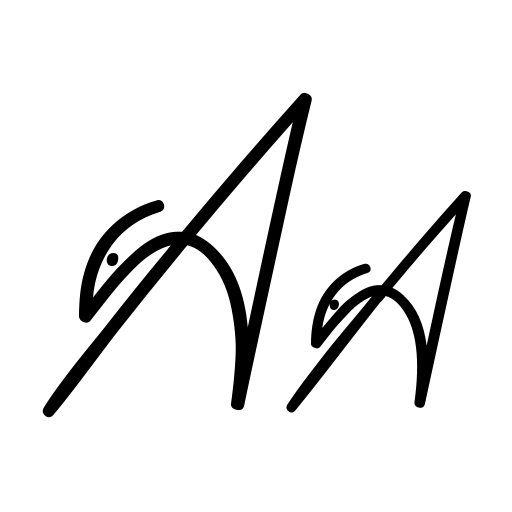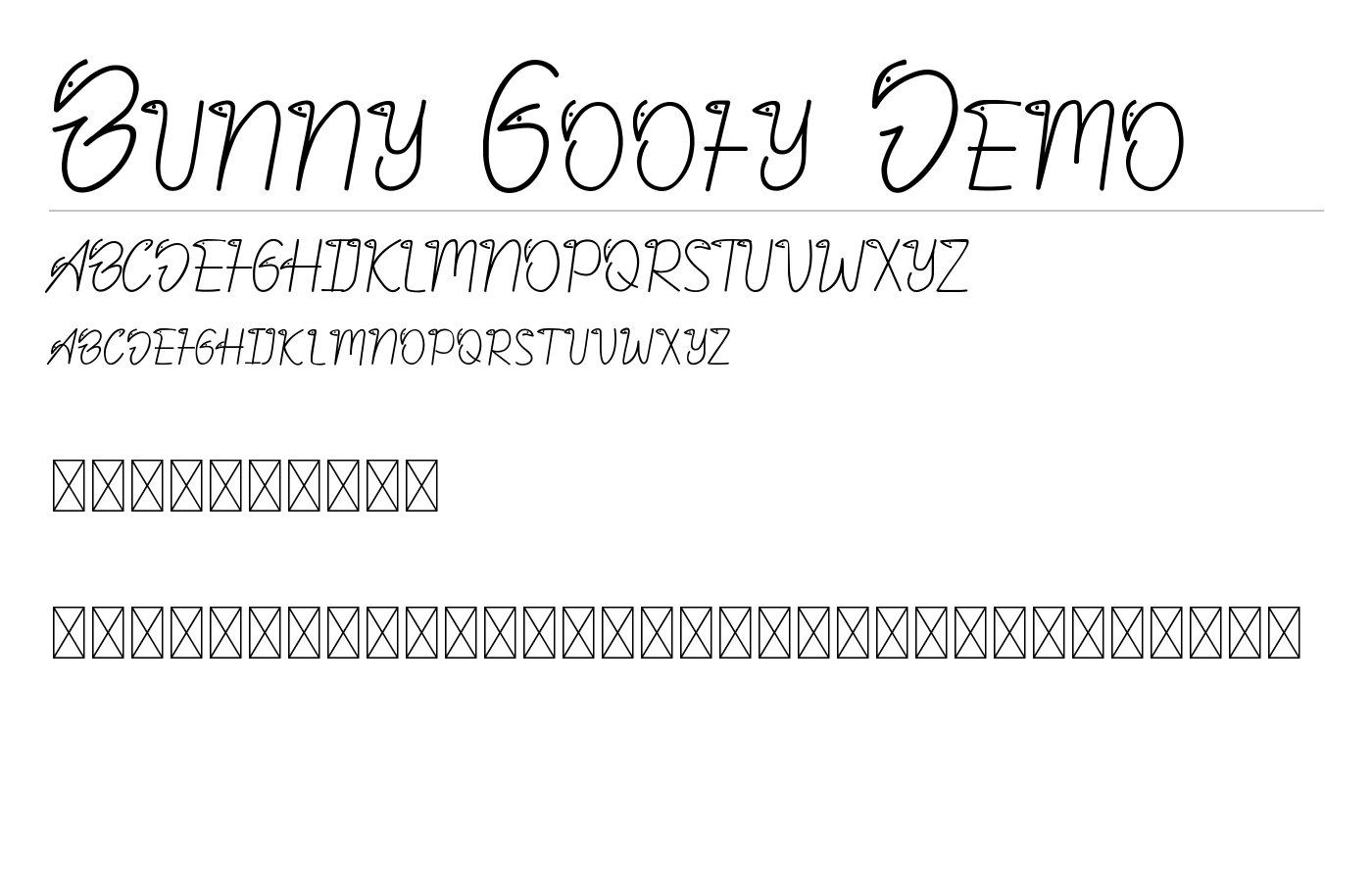
Bunny Goofy Demo is a playful, decorative handwritten font featuring thin, irregular strokes and quirky letterforms that give it a light and whimsical feel. Its casual, uneven shapes evoke a fun and informal personality, making it well-suited for creative projects, children's materials, or any design seeking a unique, charming touch. This font works best in headlines, logos, or branding where a friendly and lively style is desired.
Bunny Goofy Demo Font
About Bunny Goofy Demo Font